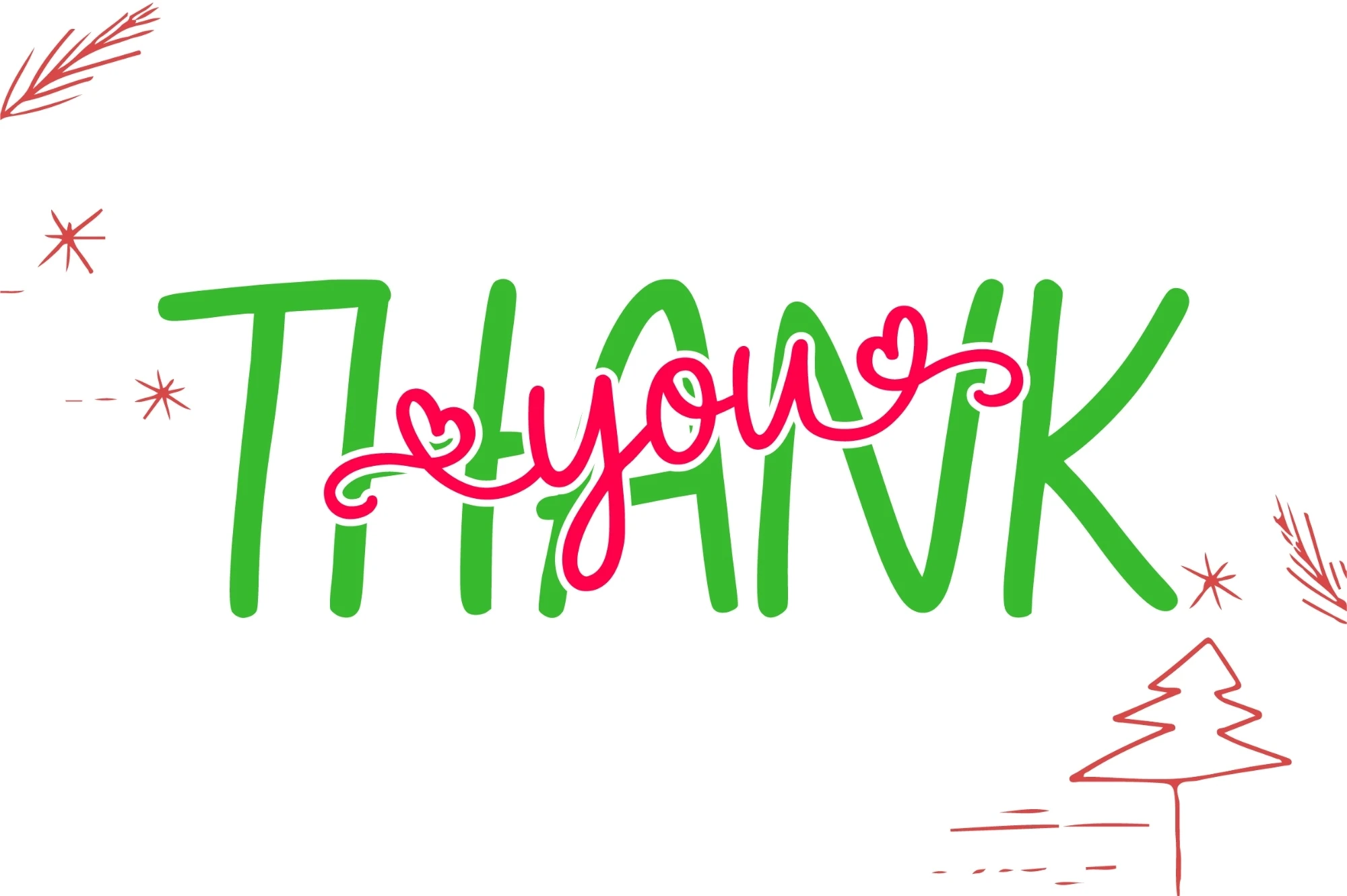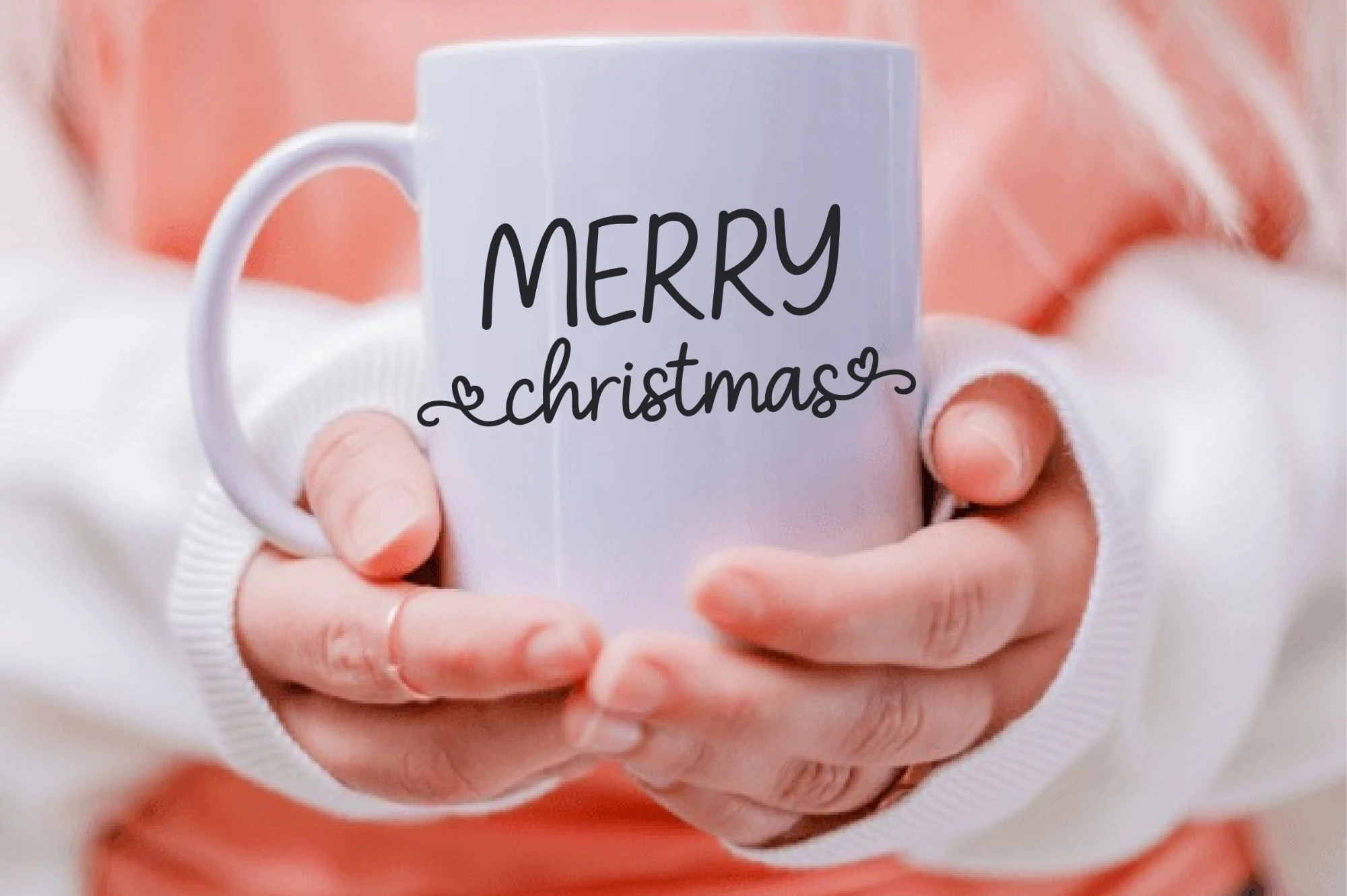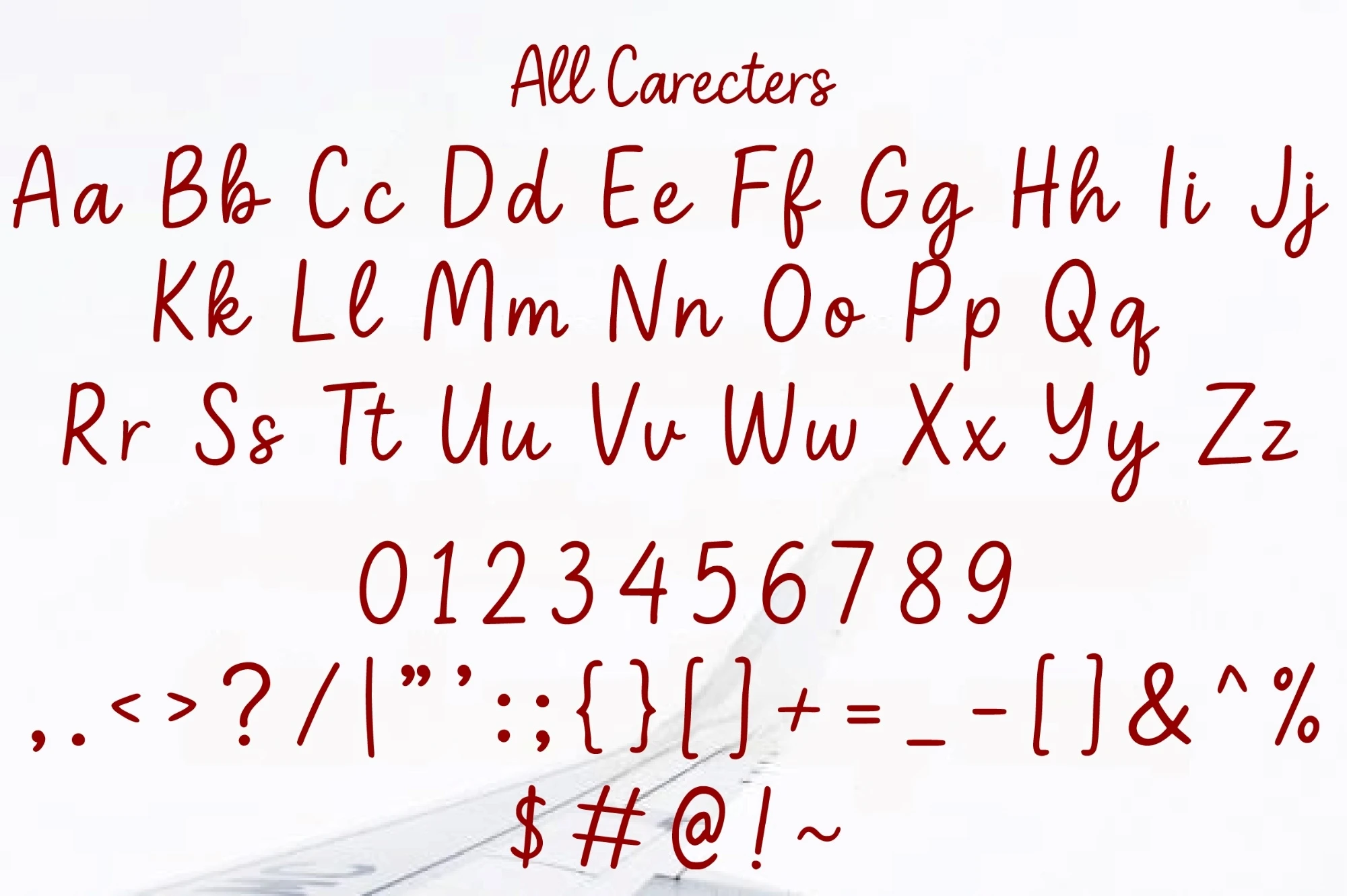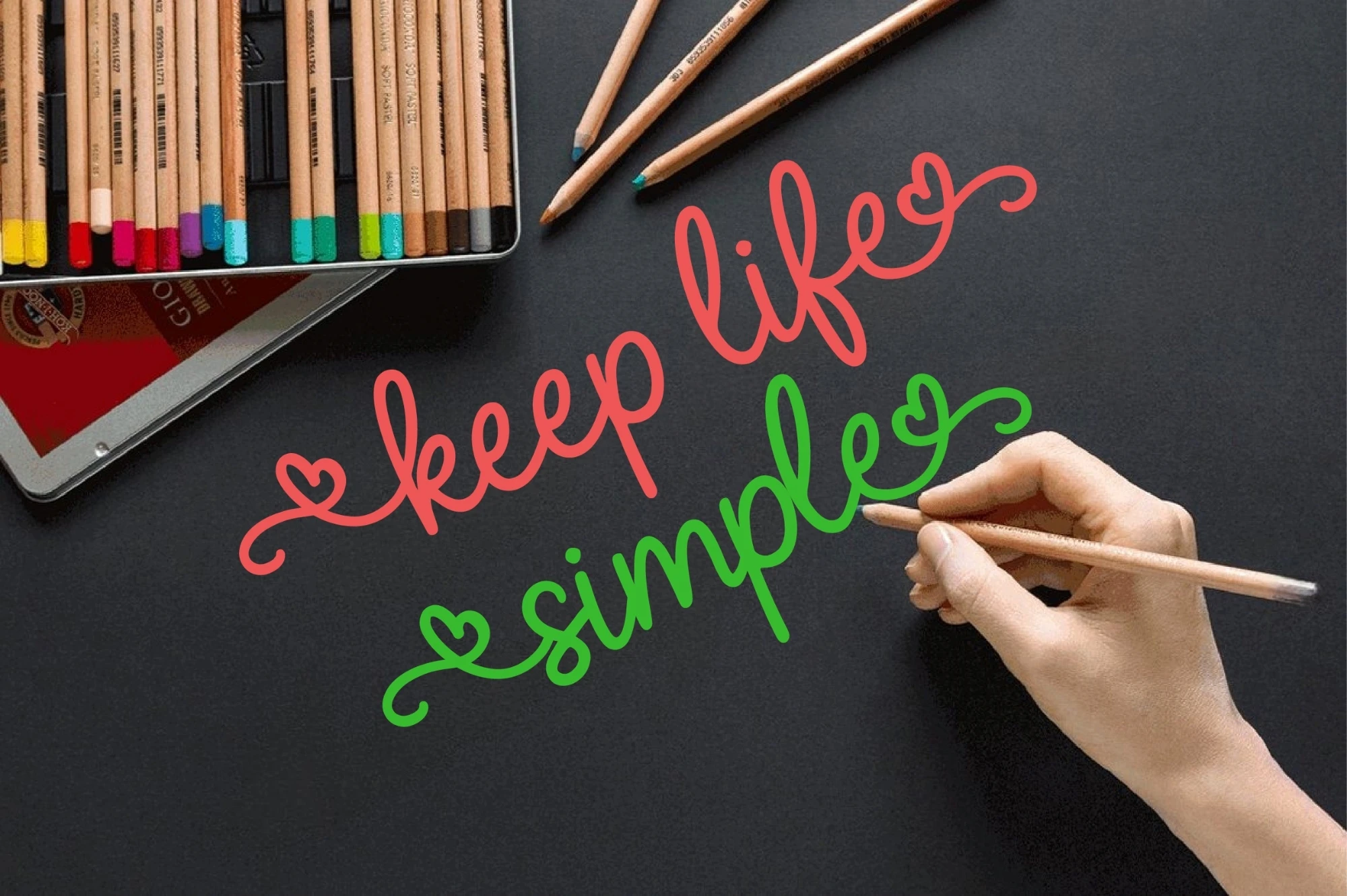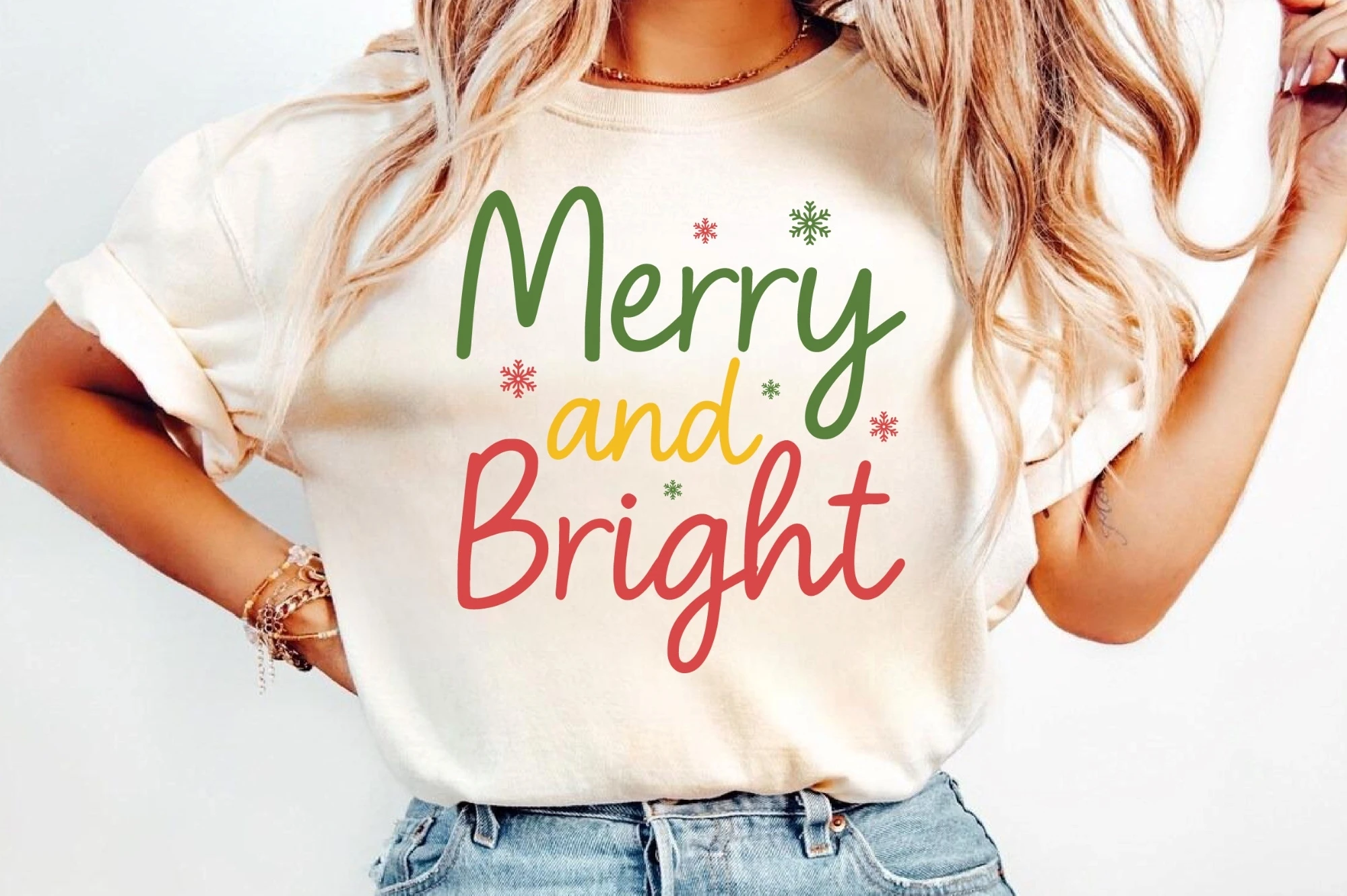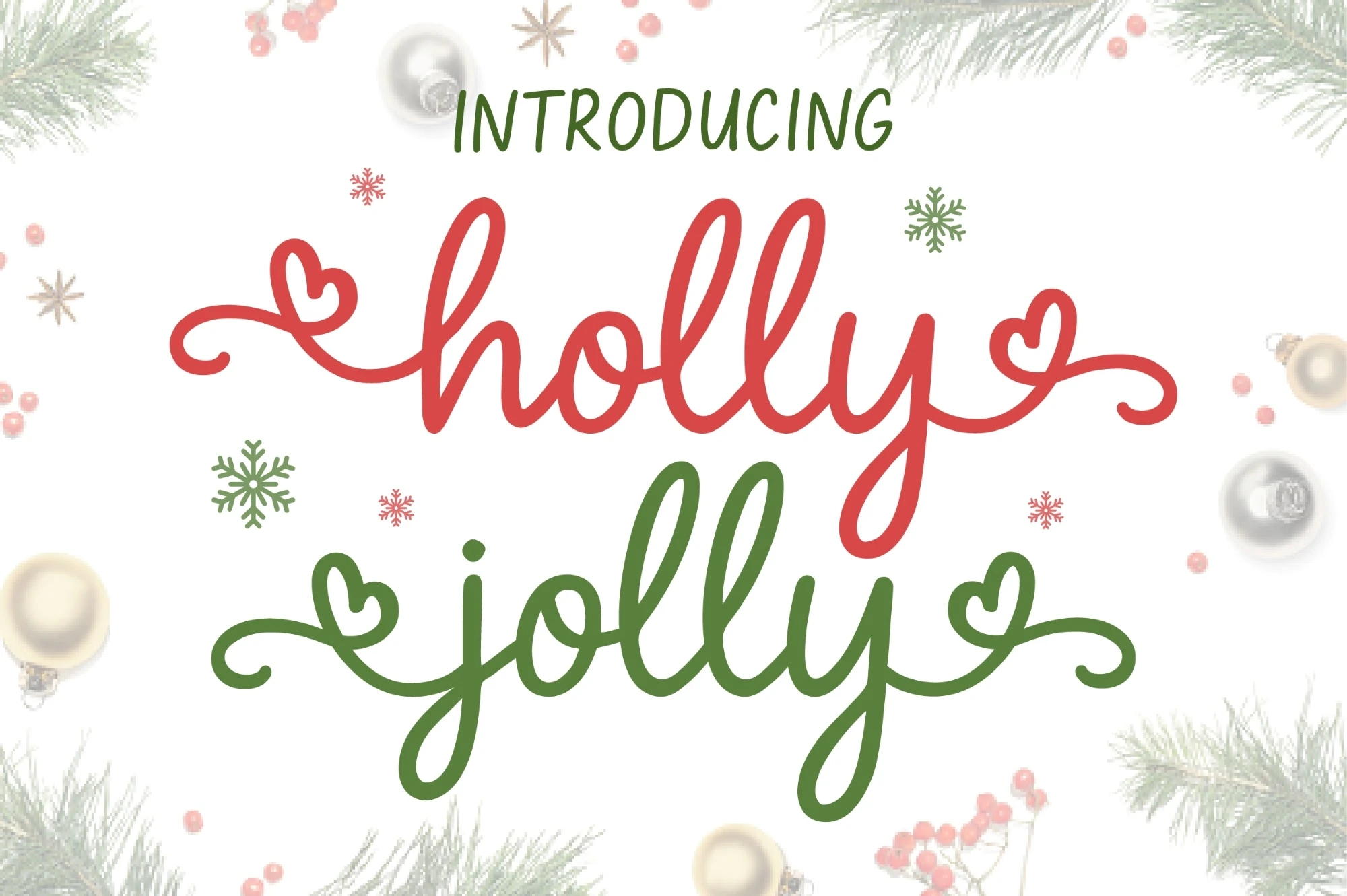
Add a cheerful festive touch to your holiday projects with Holly Jolly, a playful handwritten script font featuring adorable heart swashes and smooth flowing strokes. This font is perfect for bringing warmth and joy to your Christmas designs, whether youre creating greeting cards, gift tags, apparel, mugs, stickers, or seasonal decor.
The charming handwritten style and decorative elements make it ideal for holiday crafting, sublimation, print-on-demand products, and DIY projects with Cricut or Silhouette.
Make your Christmas creations feel sweet, cozy, and full of holiday spirit with Holly Jolly!
The charming handwritten style and decorative elements make it ideal for holiday crafting, sublimation, print-on-demand products, and DIY projects with Cricut or Silhouette.
Make your Christmas creations feel sweet, cozy, and full of holiday spirit with Holly Jolly!
Holly Jolly Font